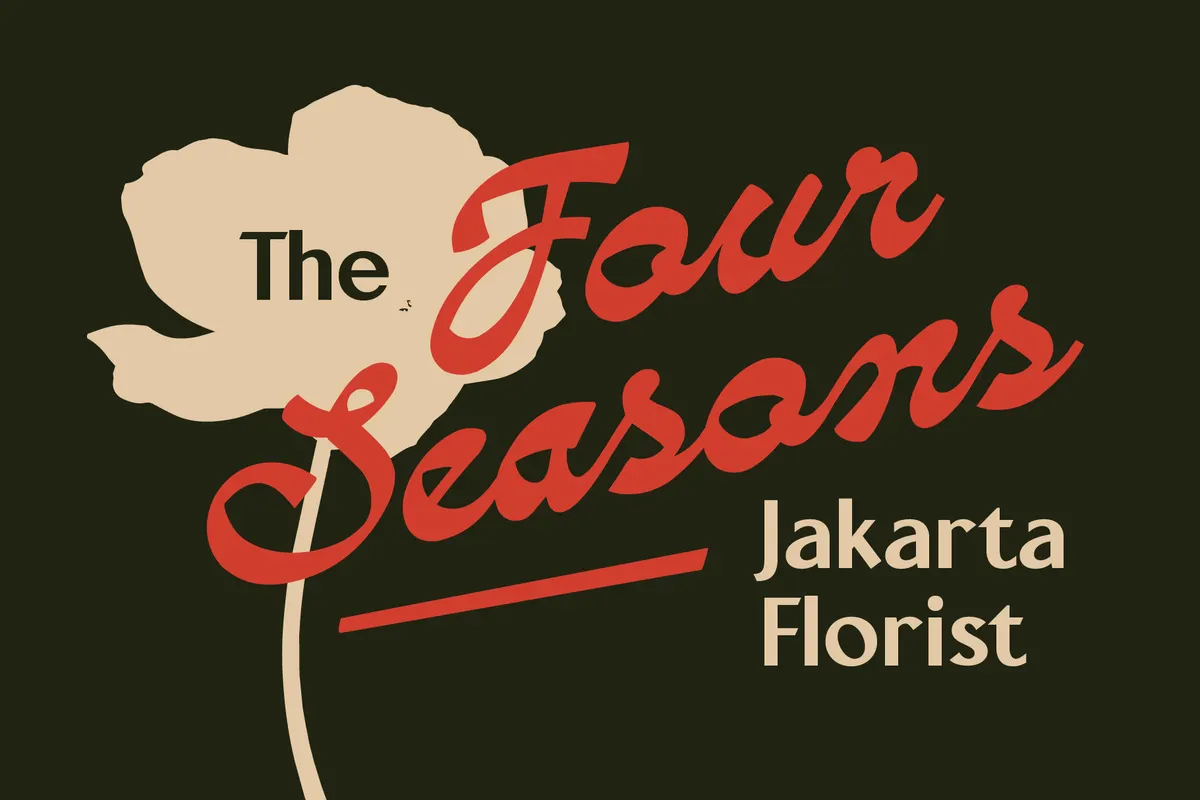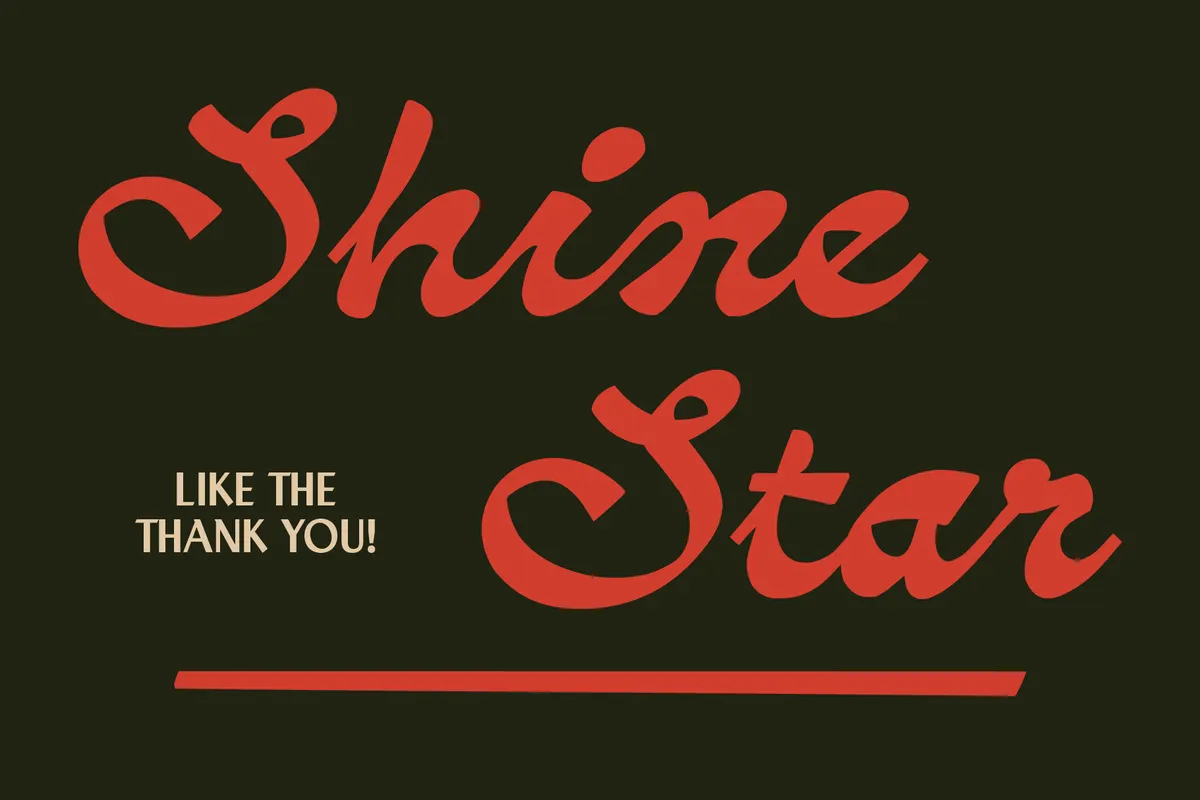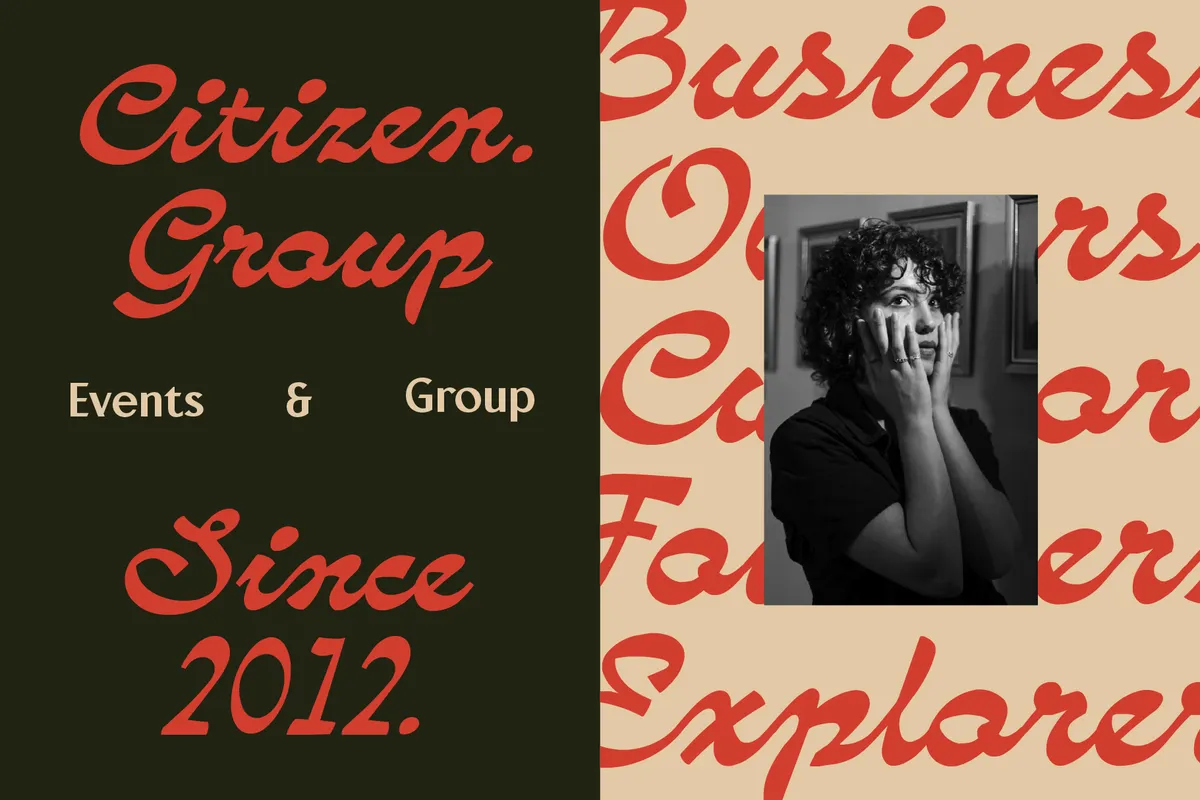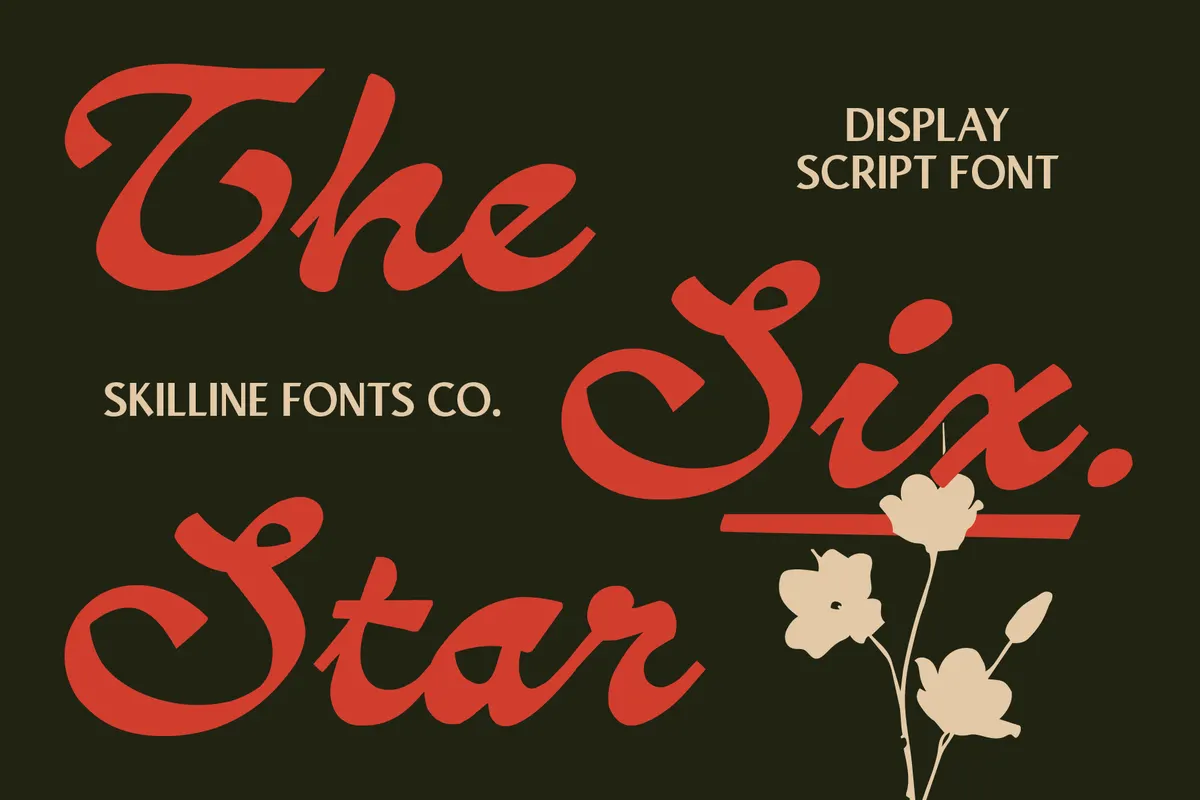
Six Star - Vintage Script Font
SFC Six Star
Six Star flows from classic sign-painting script, with wide looping connections and rounded terminals that keep the letters moving instead of stopping at each stroke. The construction is bold enough to hold up at display sizes without losing its handwritten warmth.
Use it for logo scripts, vintage branding, greeting cards, packaging accents, and editorial headlines that want a warm, retro touch.
- Uppercase & lowercase;
- Numerals & punctuation;
- Ligatures & superscript figures;